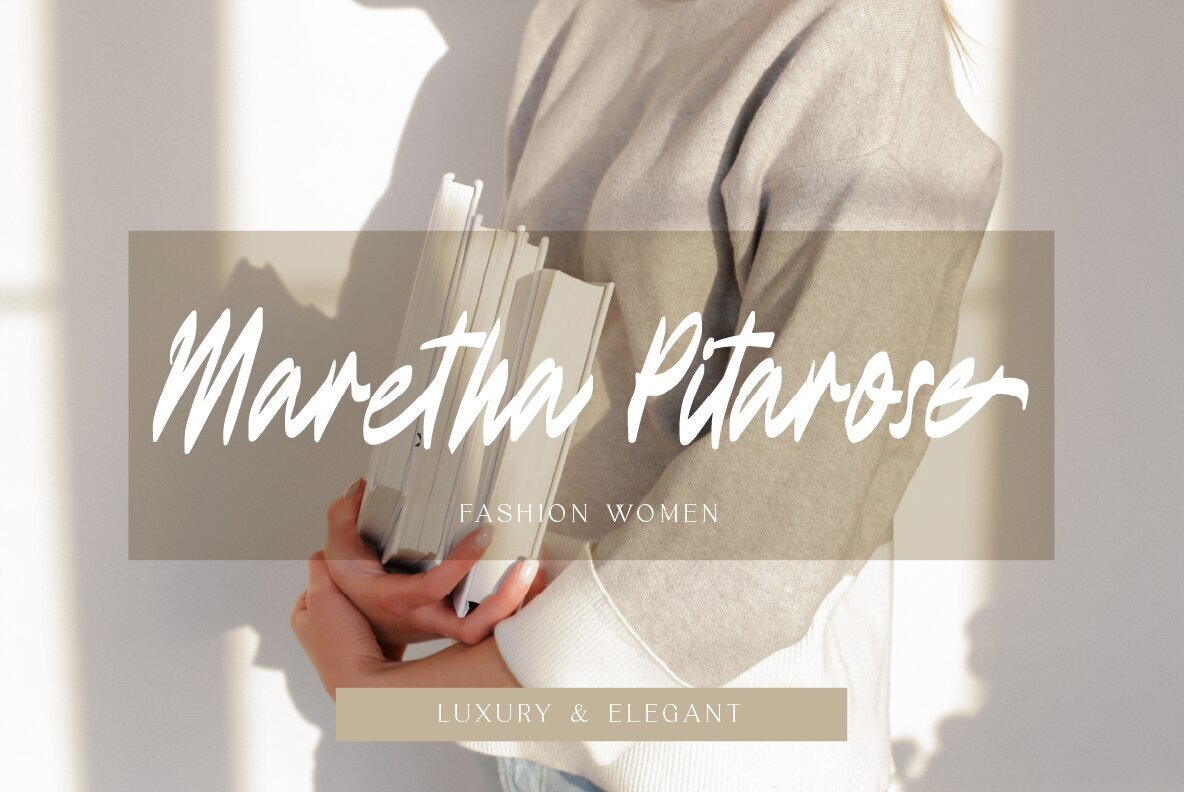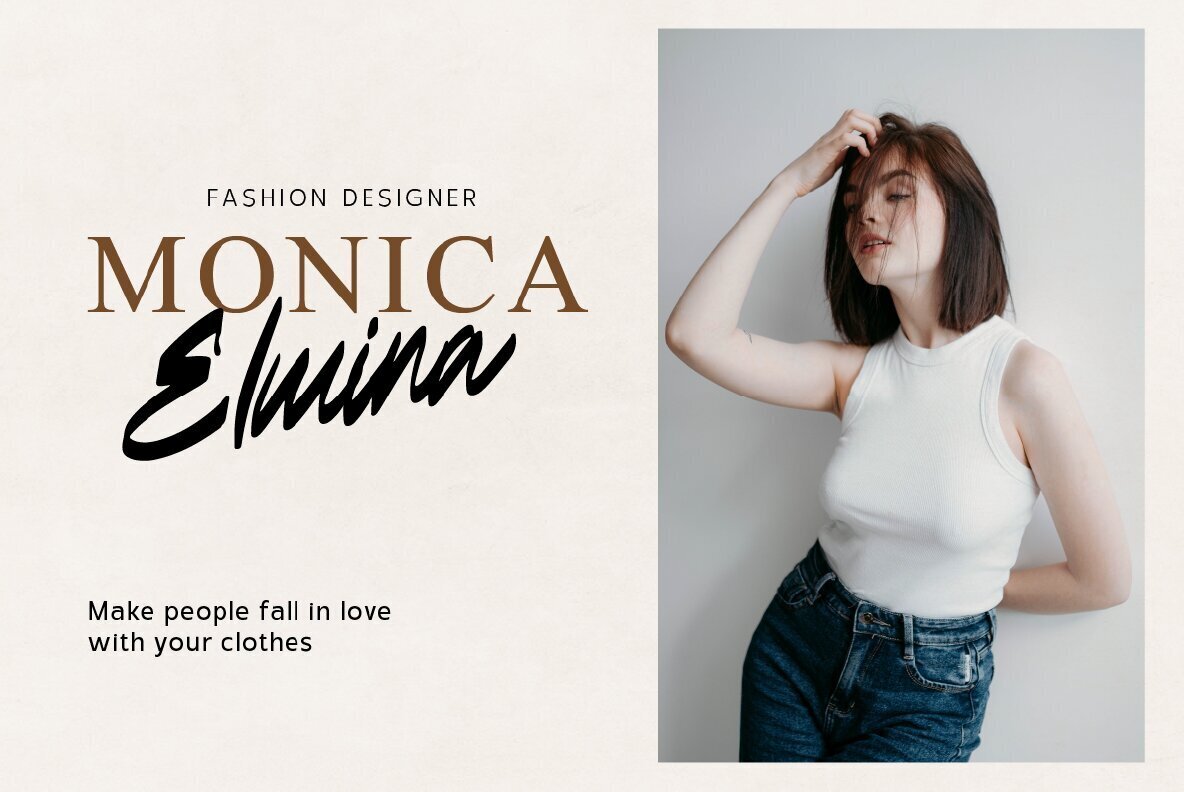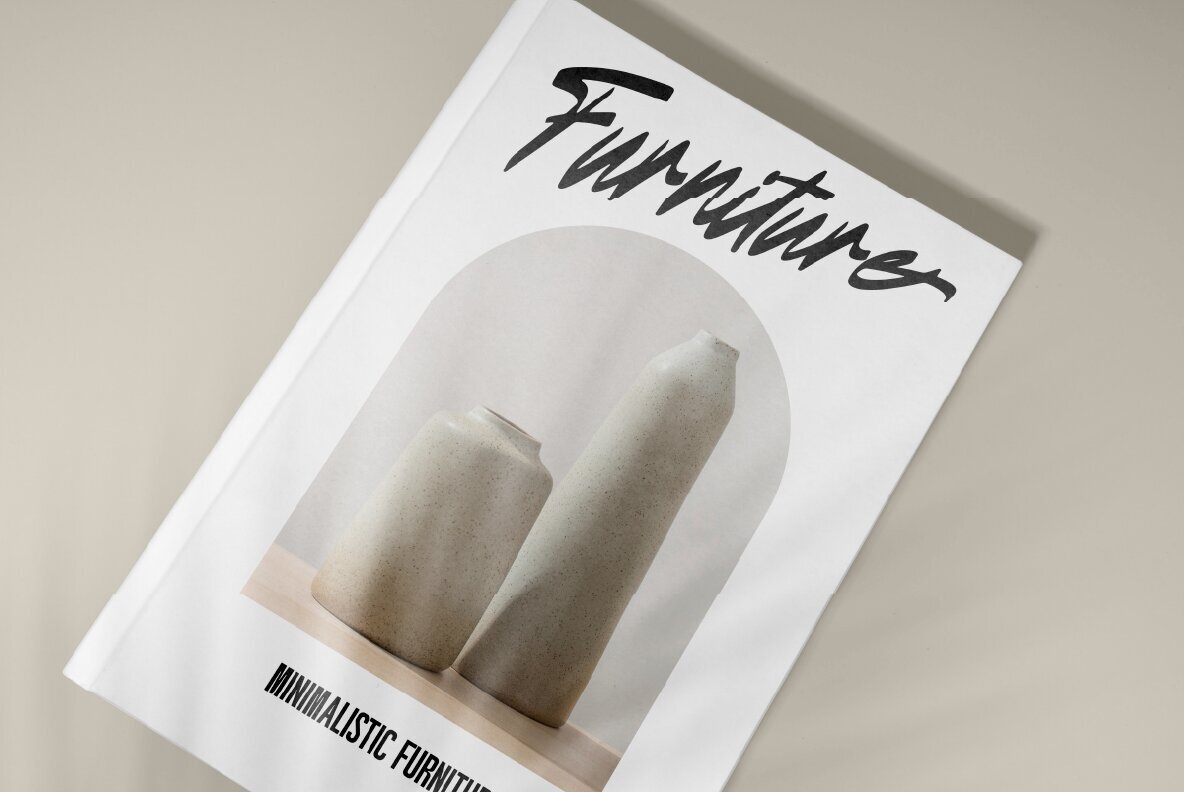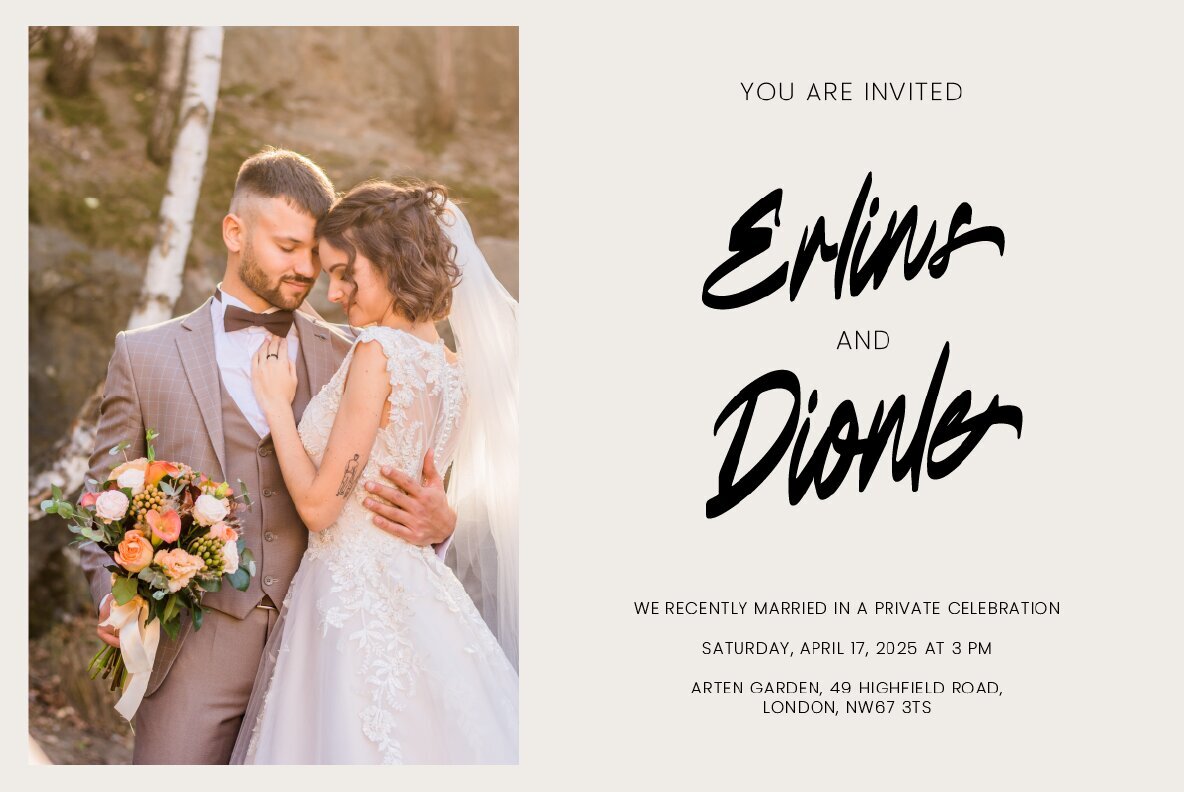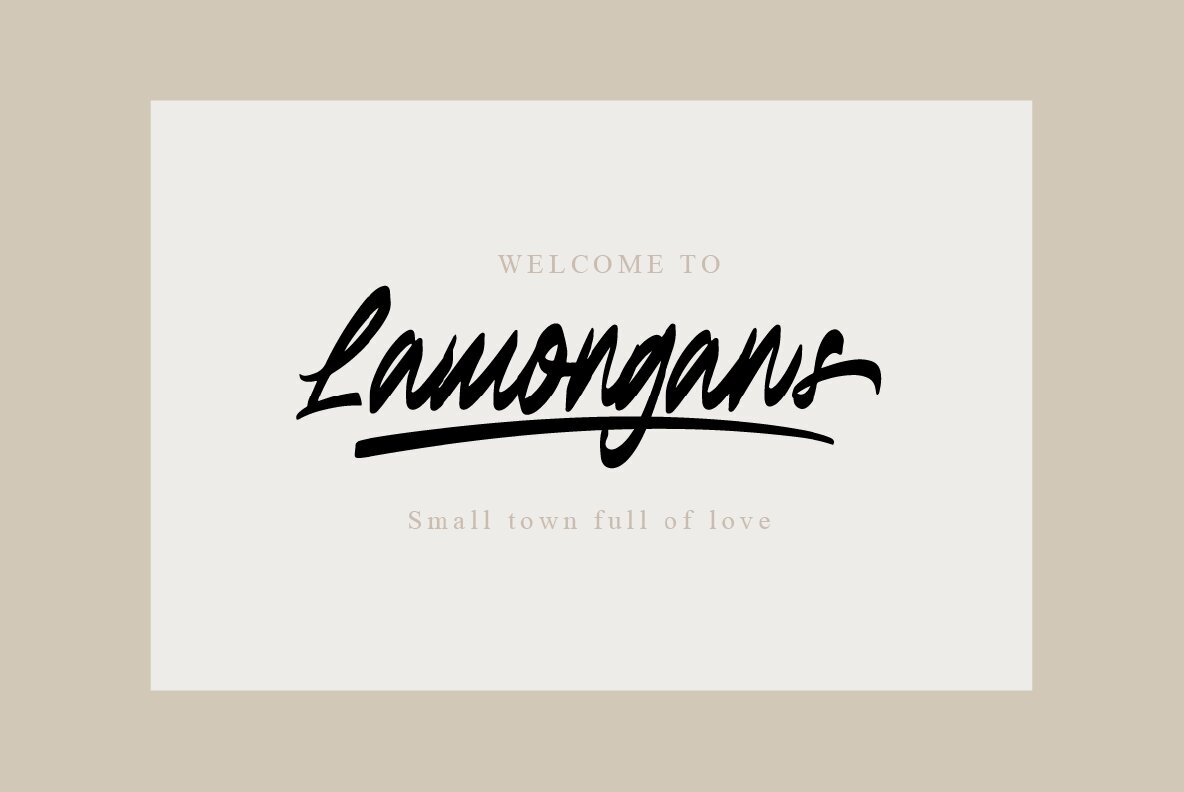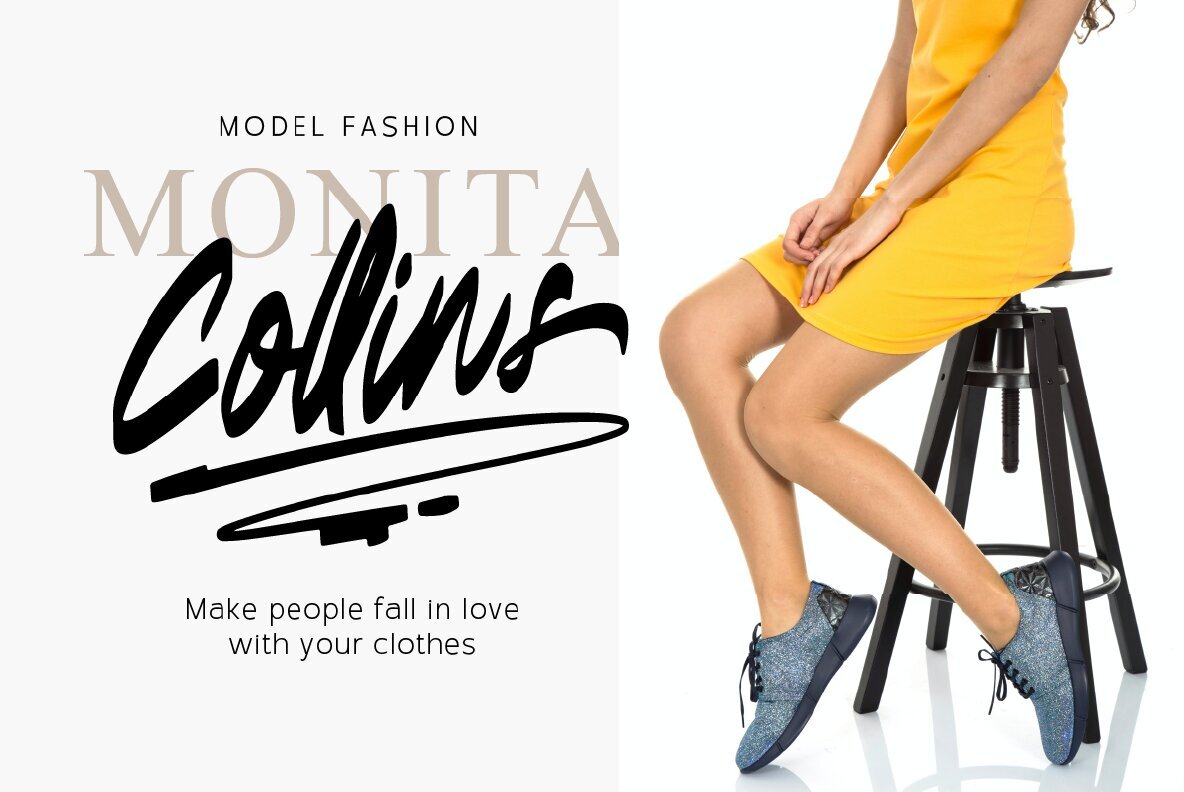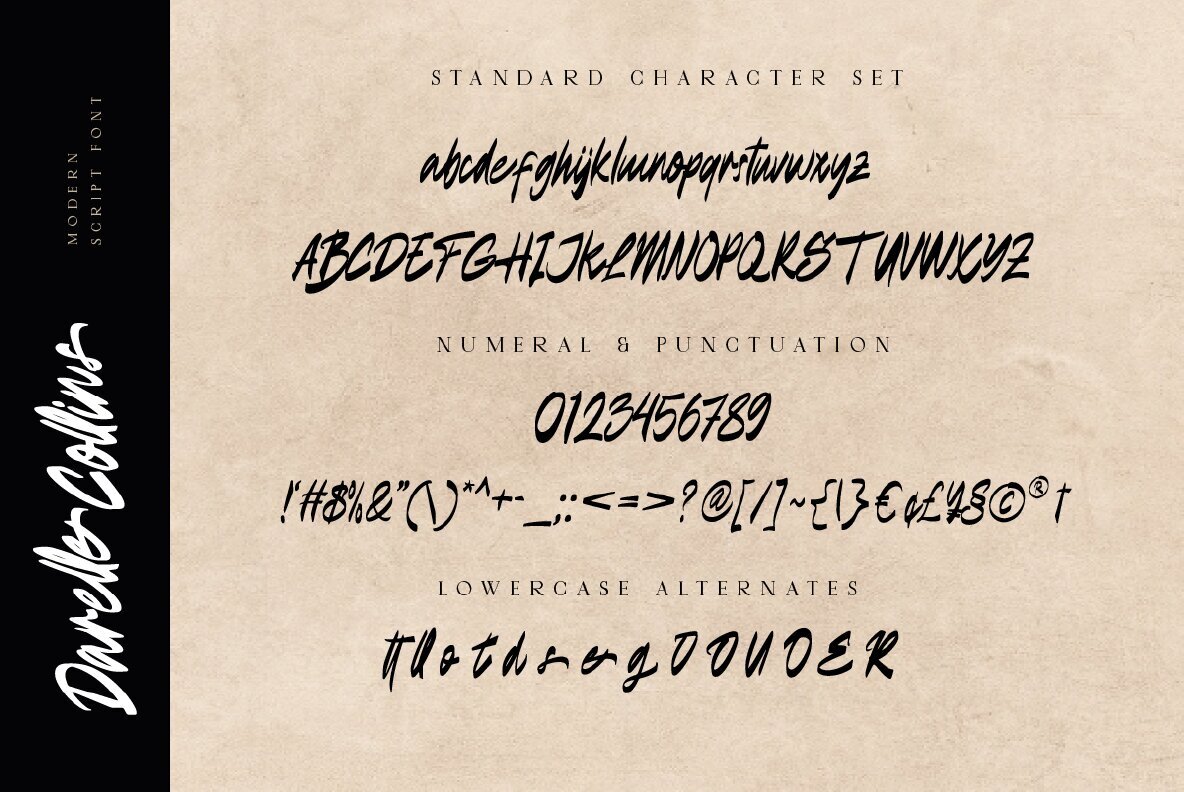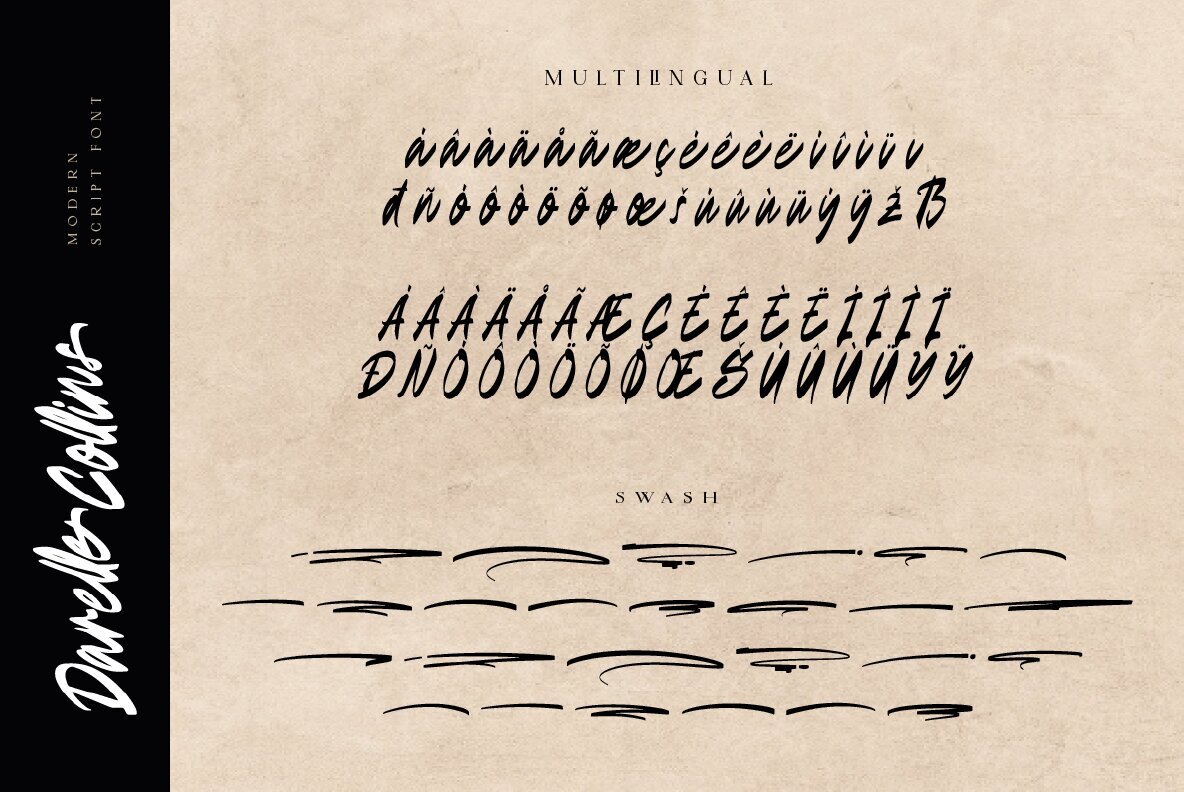
Darelle Collins Font
Darelle Collins Font is a modern script designed to bring a fresh and stylish aesthetic to your projects. This font adds a distinctive and eye-catching appeal to logo designs, brand imagery, quotes, product packaging, merchandise, and social media posts.Darelle Collins: Modern Script Font